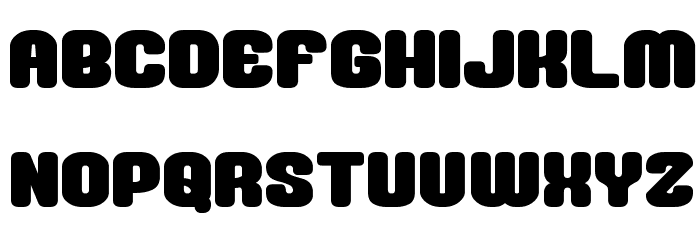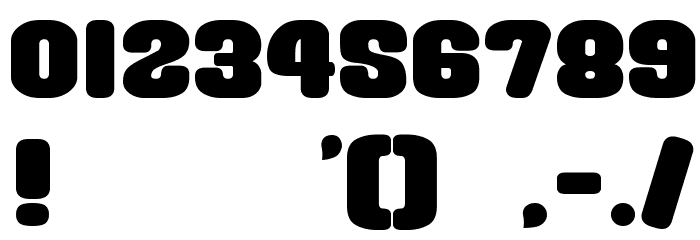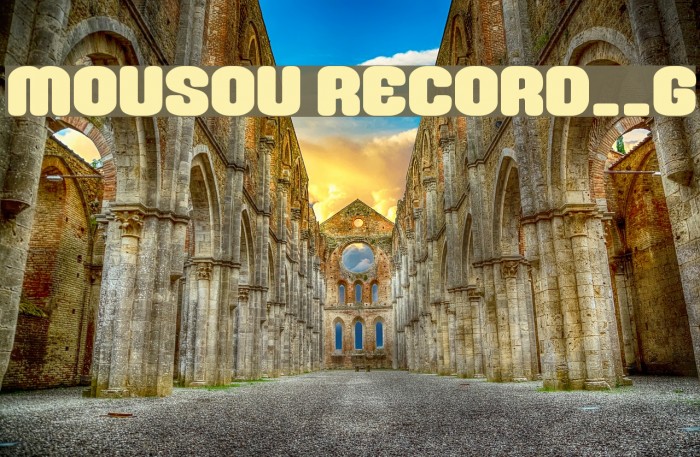
Mousou Record__G Font
This font features bold, rounded characters with a playful and modern aesthetic. The letters are uniformly thick, creating a strong visual impact. The rounded edges give it a friendly and approachable feel, making it suitable for a variety of creative projects. The numbers and special characters maintain the same boldness and rounded style, ensuring consistency across all elements. This font is ideal for designs that require a bold statement while maintaining a fun and engaging tone.
A bold, rounded font with a playful and modern style.
- Proposed Projects: Ideal for posters, children's books, logos, and branding materials that require a bold and friendly appearance.